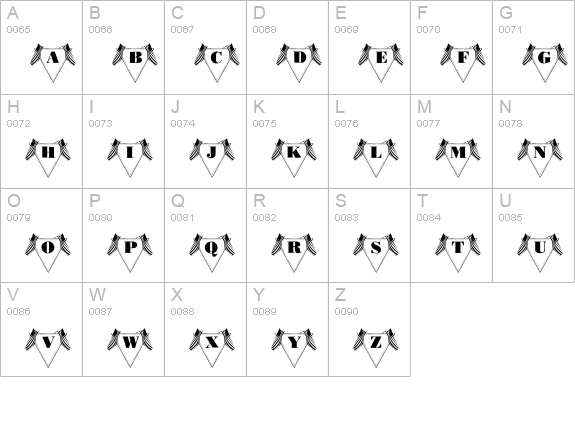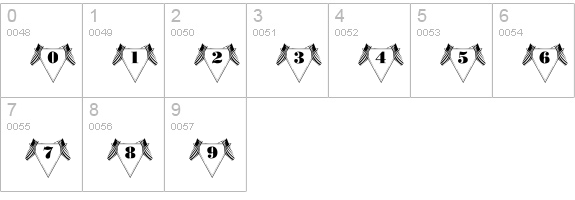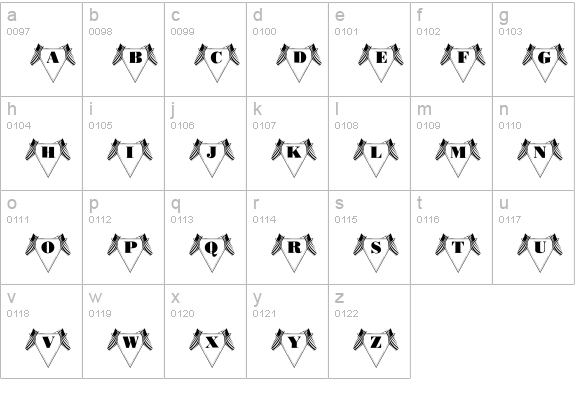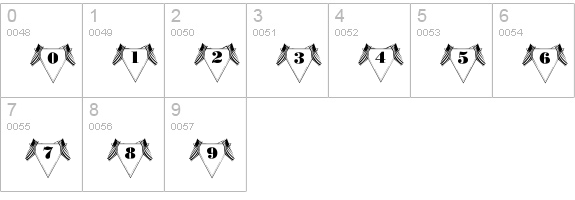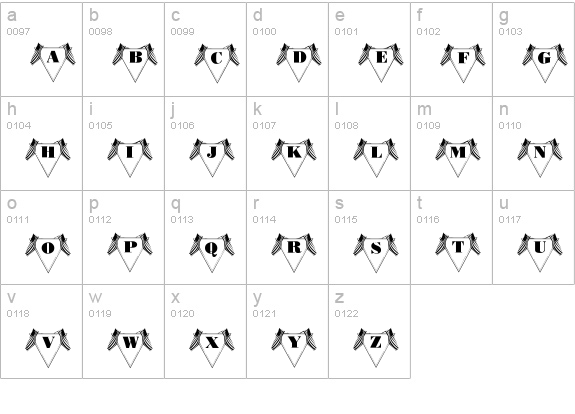
Sure! Here is a long description for 101! All American font in an All American style: Welcome to the bold and patriotic world of 101! All American font! This font exudes a strong and confident American spirit, perfect for any project that requires a touch of national pride. With its bold and striking design, 101! All American font is sure to make a statement and capture the attention of your audience. Featuring a classic All American style, this font is versatile and can be used for a wide range of projects, from posters and banners to social media graphics and branding materials. Its clean lines and sharp edges give it a modern and timeless look that will never go out of style. What's even better is that 101! All American font is available for free download at FontsMarket.com. That's right, you can get your hands on this stunning font at no cost at all. So why wait? Add a touch of All American flair to your designs today with 101! All American font! Download 101! All American font for free now at FontsMarket.com and let your creativity soar!